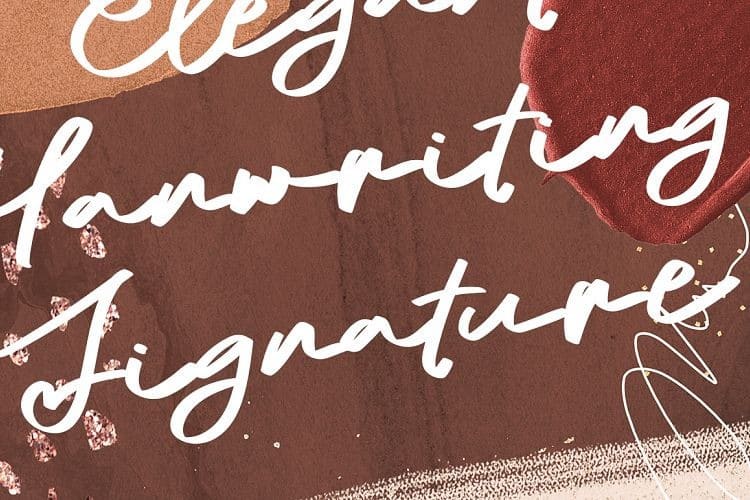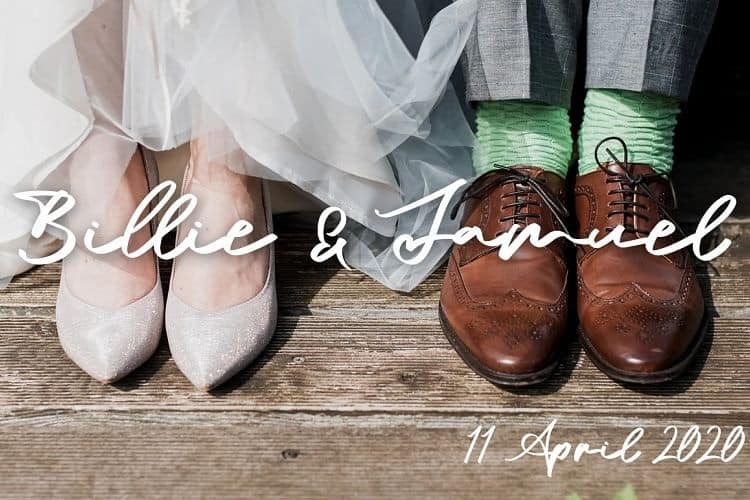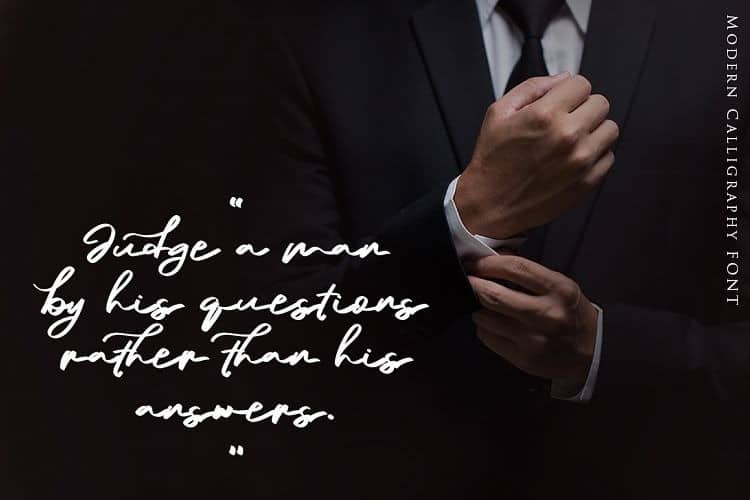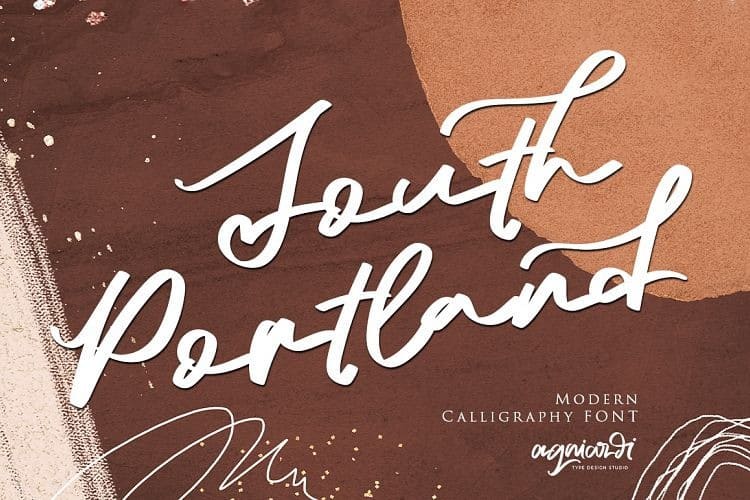
South Portland Script Font is a signature font with beautiful curves and alternate characters. A style that we choose was the natural look hand made, unique identity. South Portland Script Font also comes with alternative characters that are carefully created for adding a minimalist decor of the letters.
Stylistic alternates allows versatile design options and works perfectly for Headlines, Posters, Logos Packaging, Branding, T-shirts, Greetings, Presentations and much more.